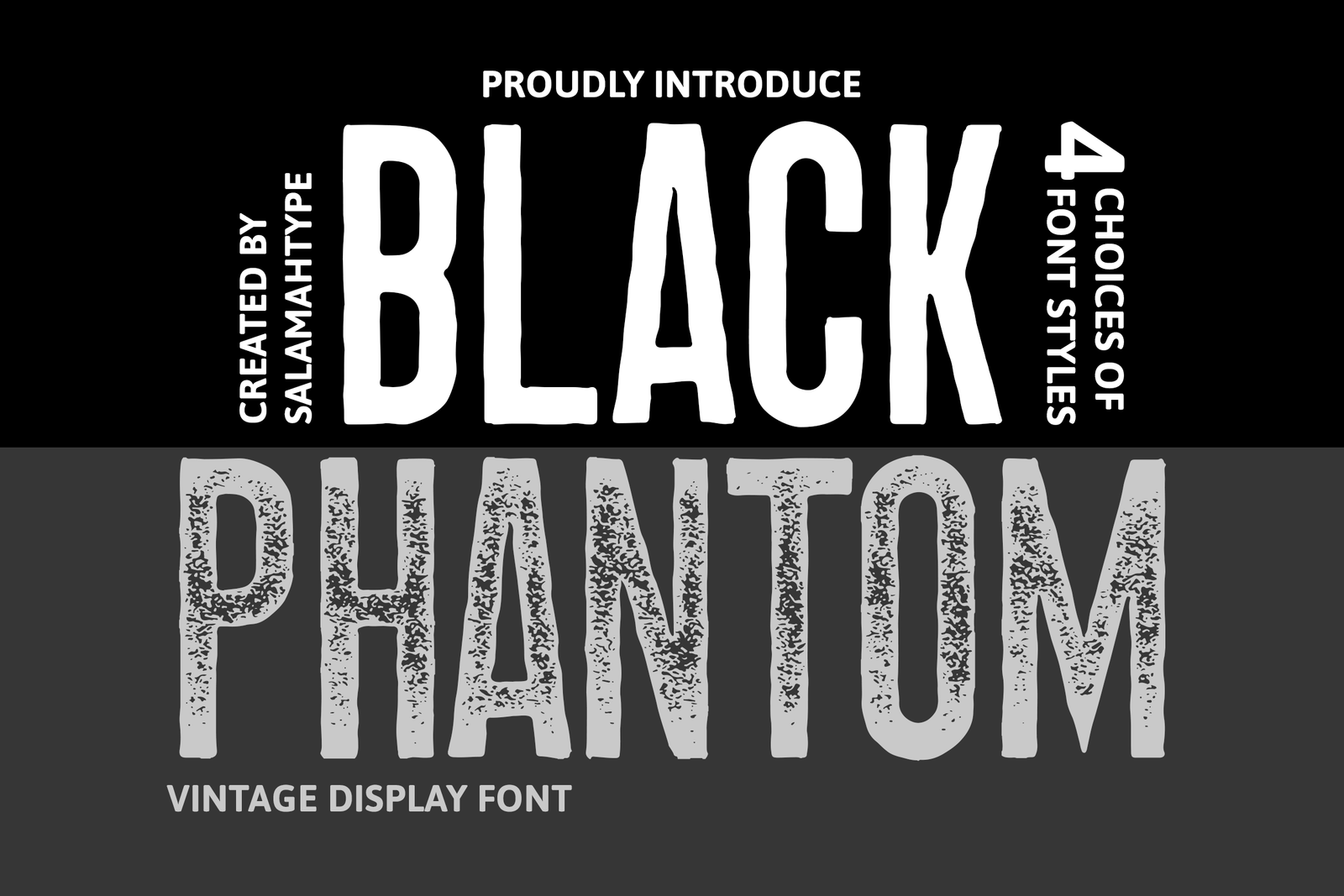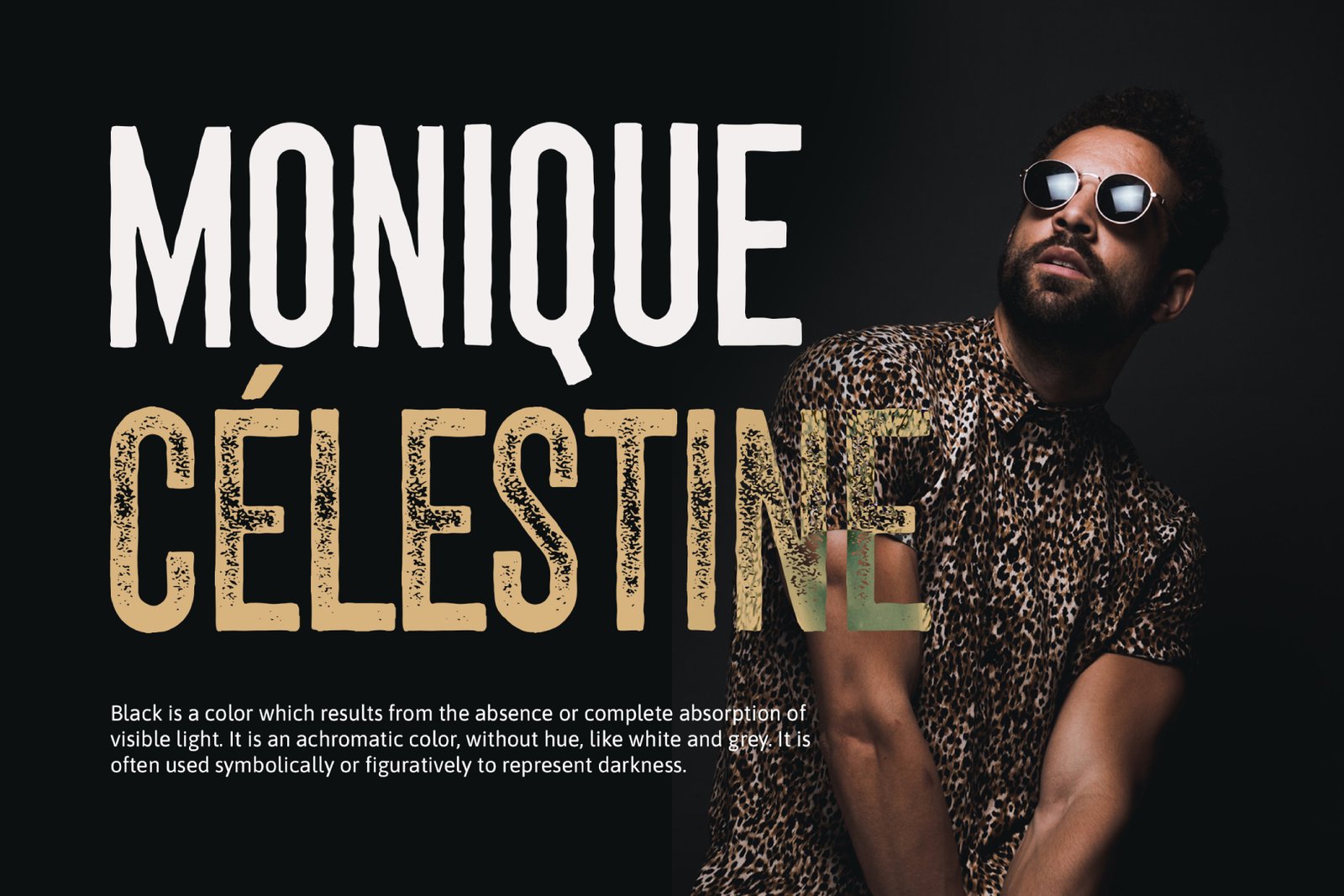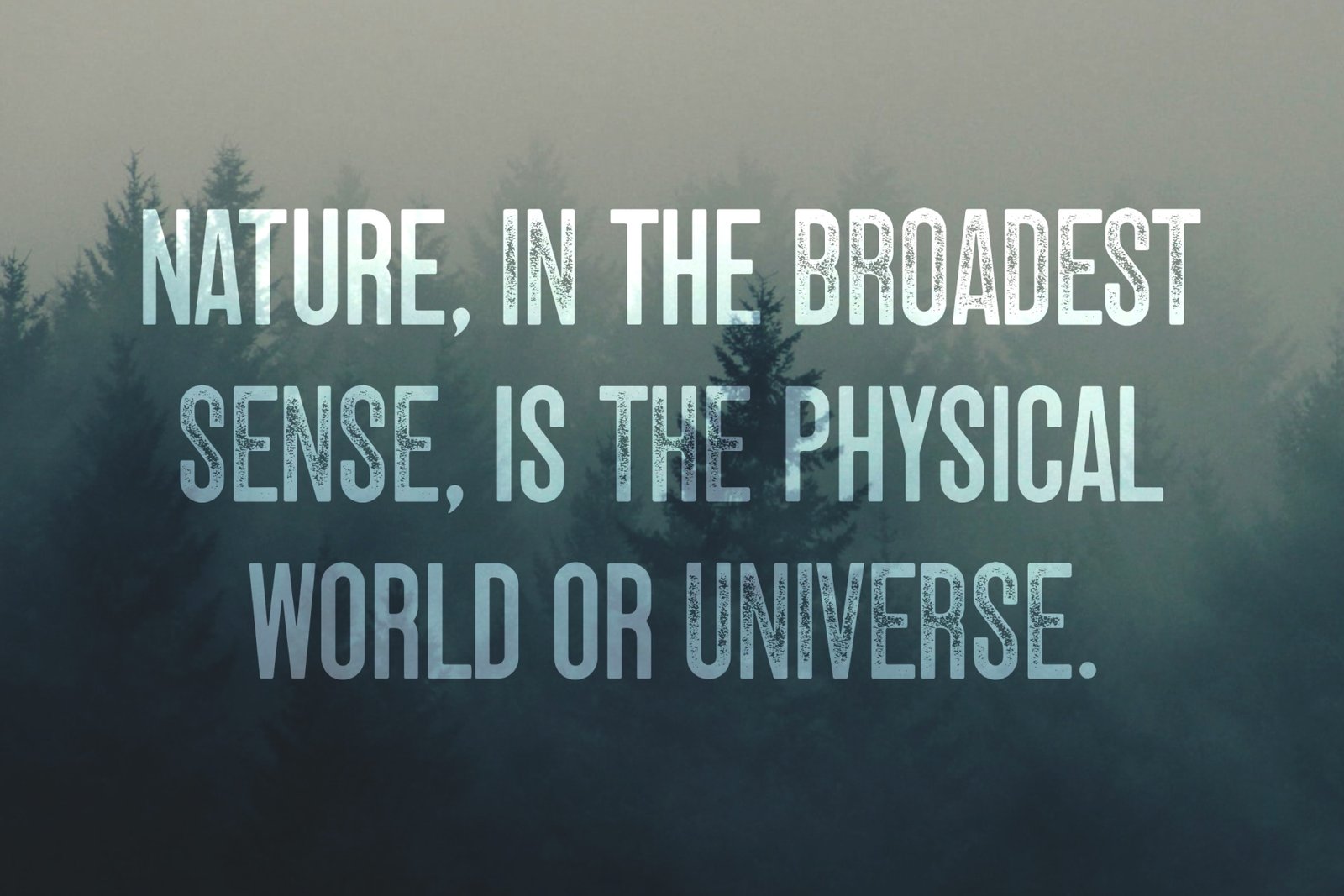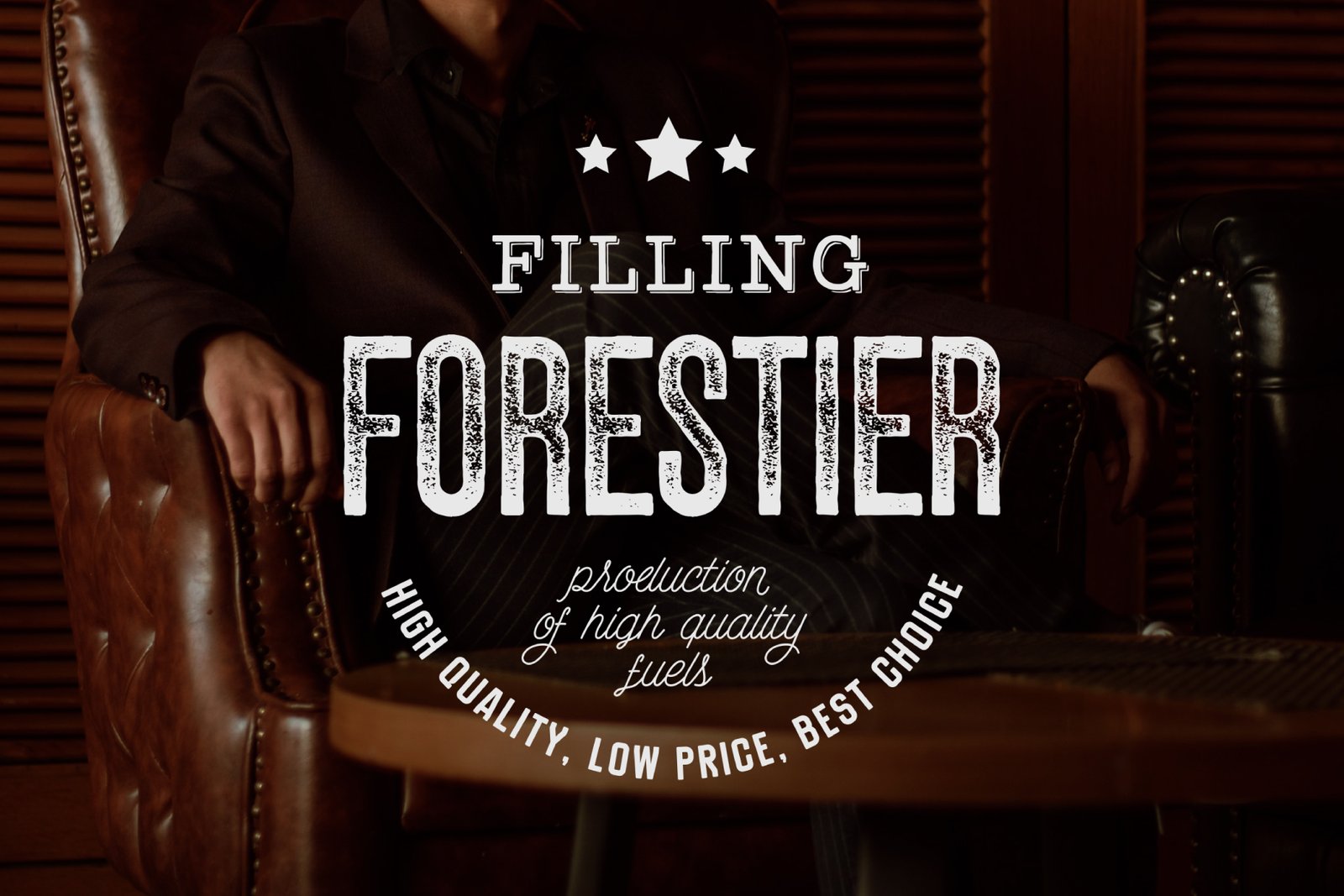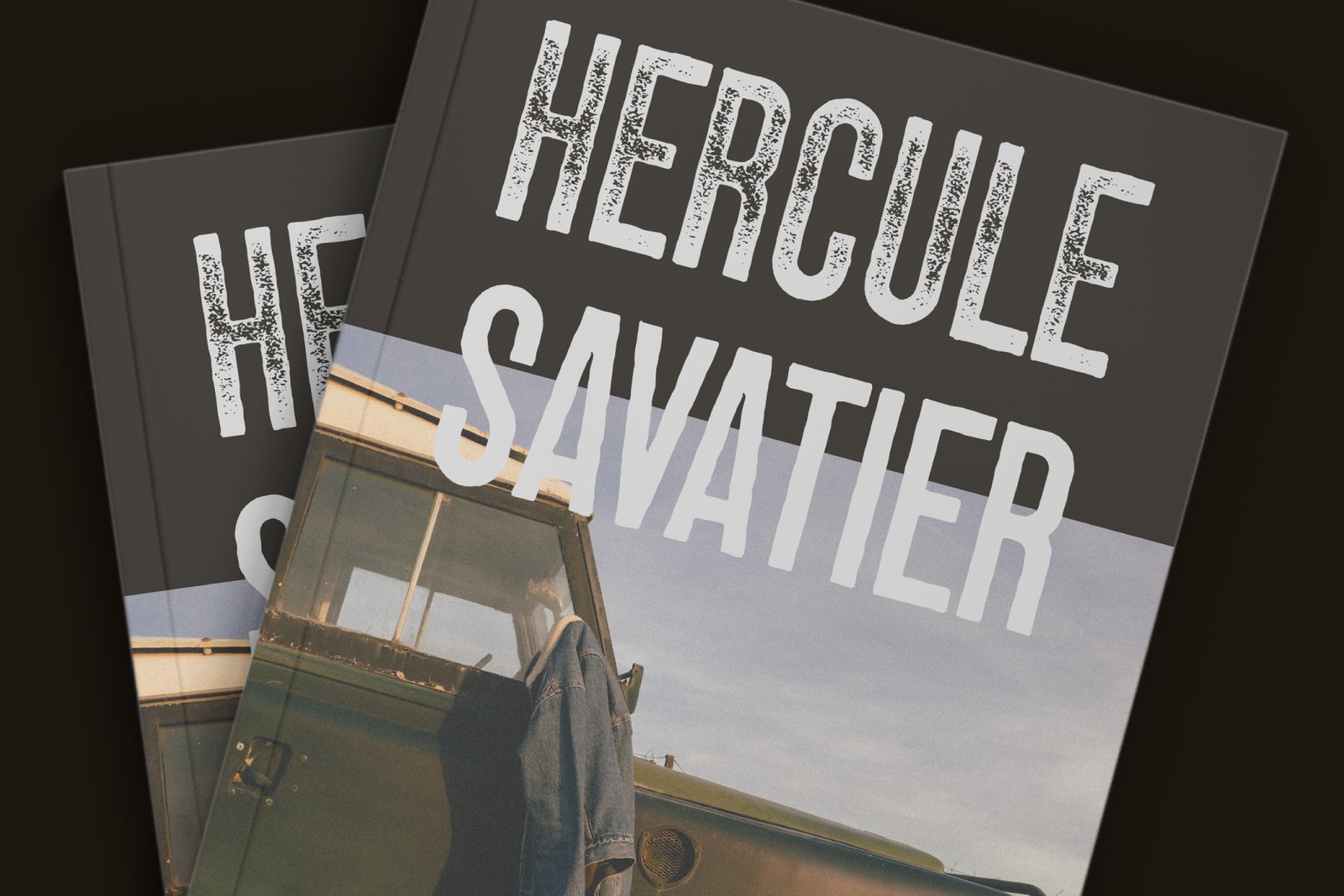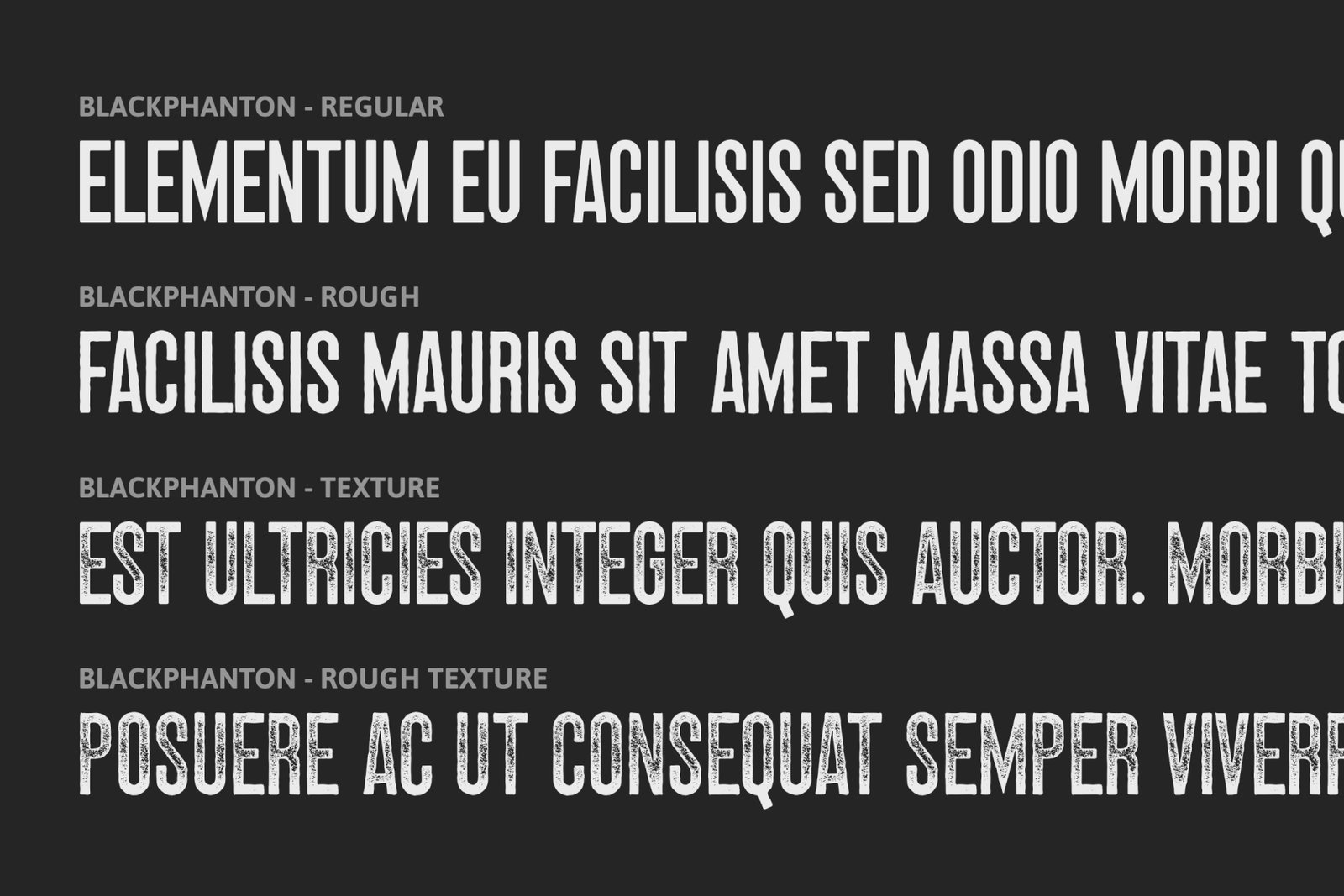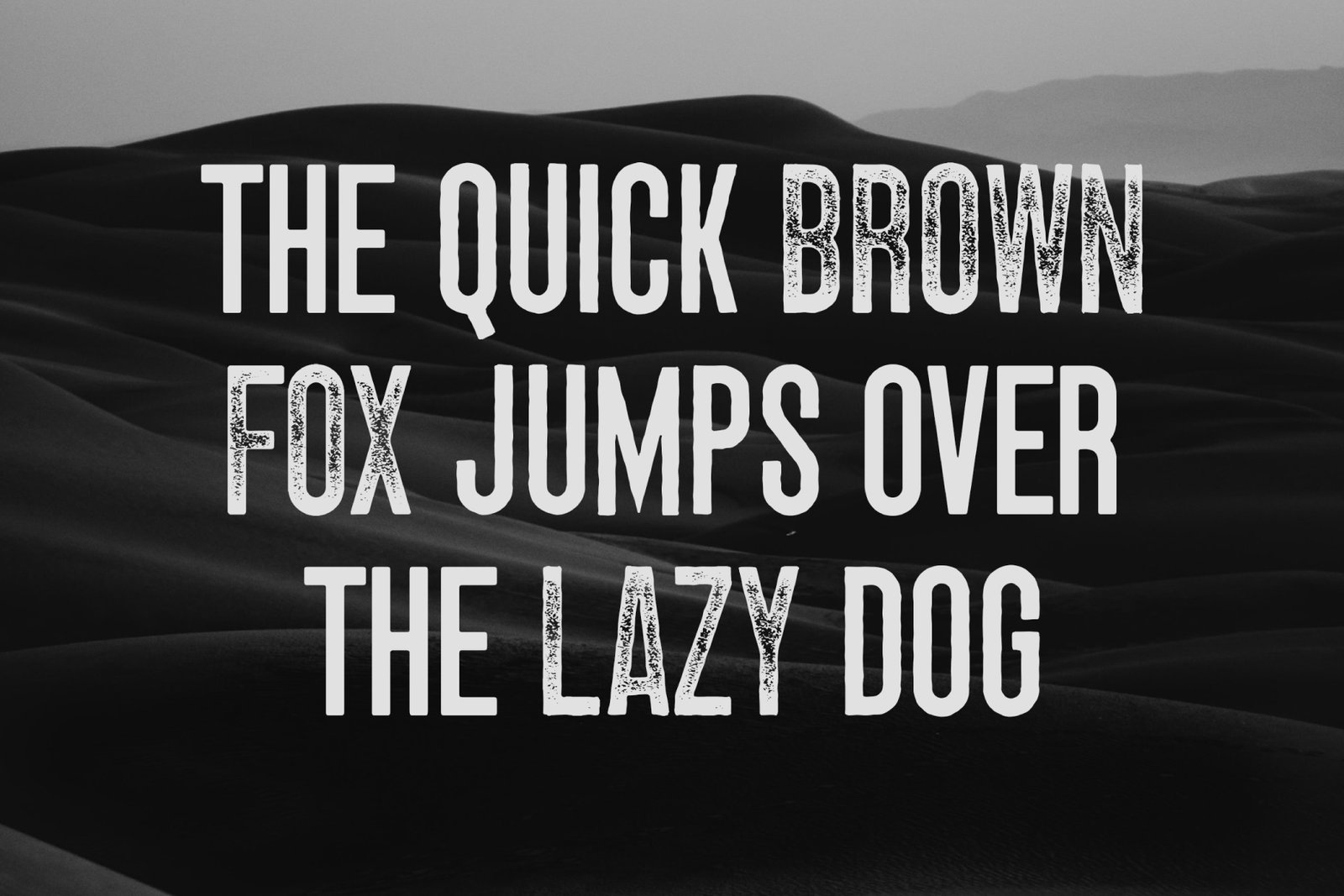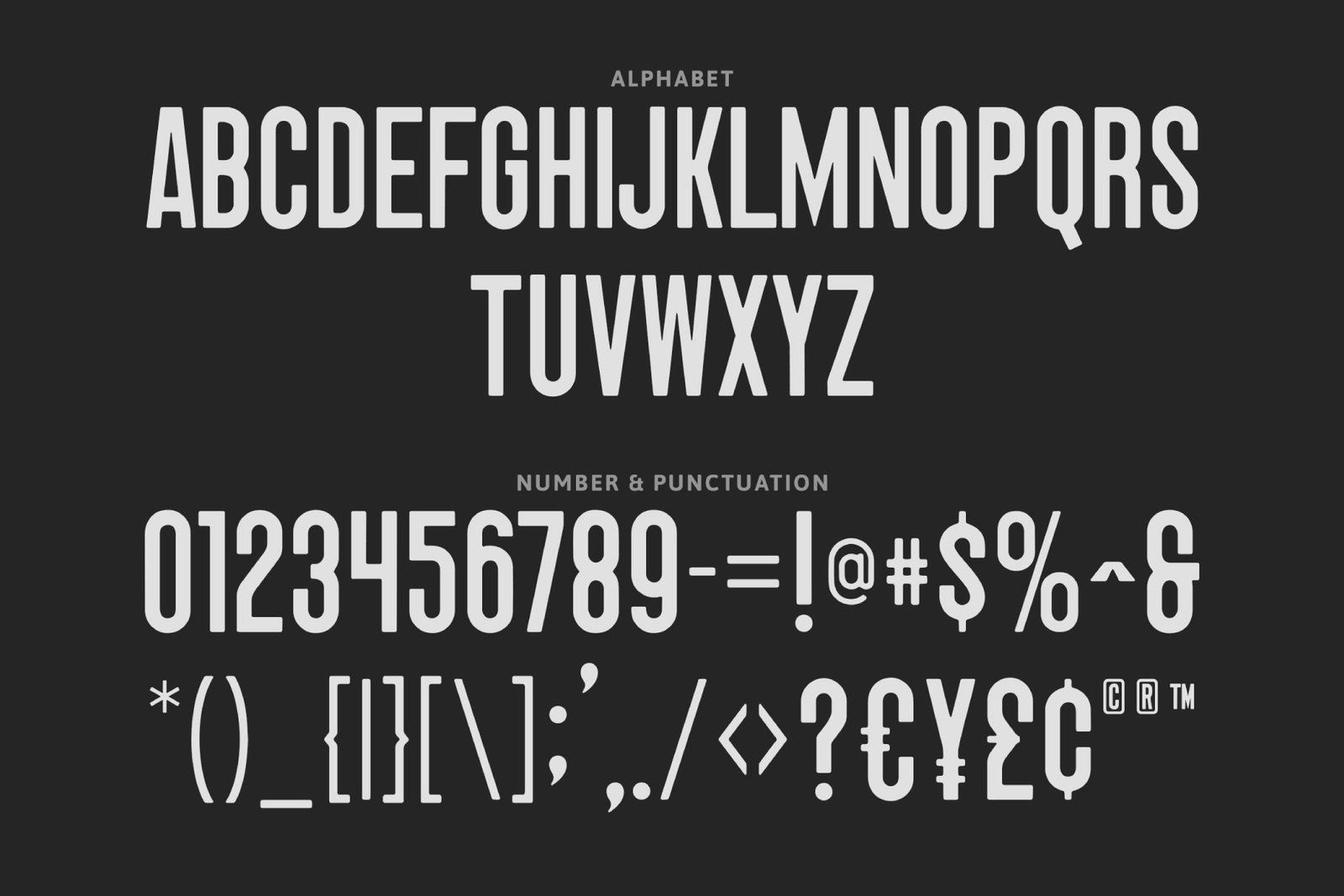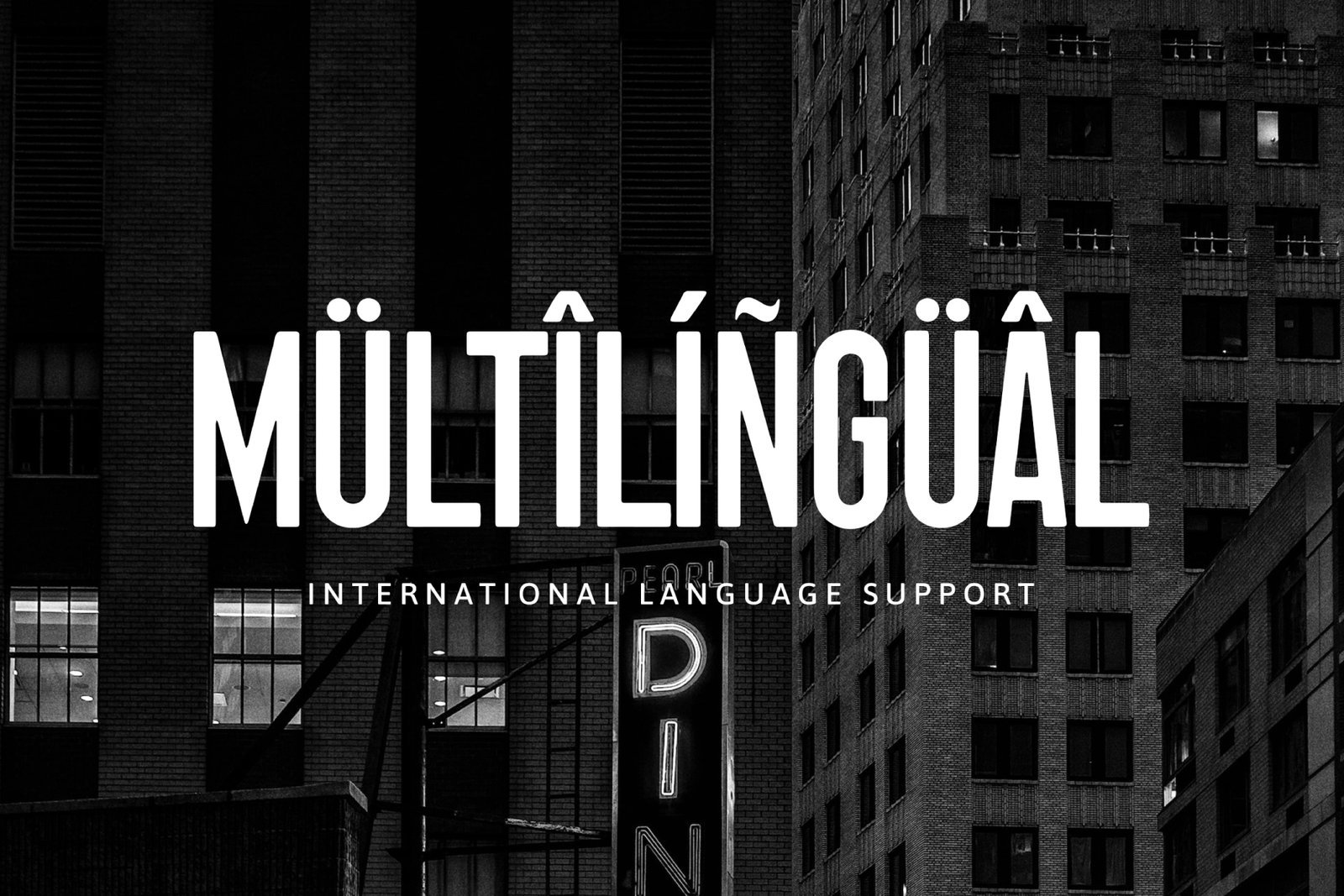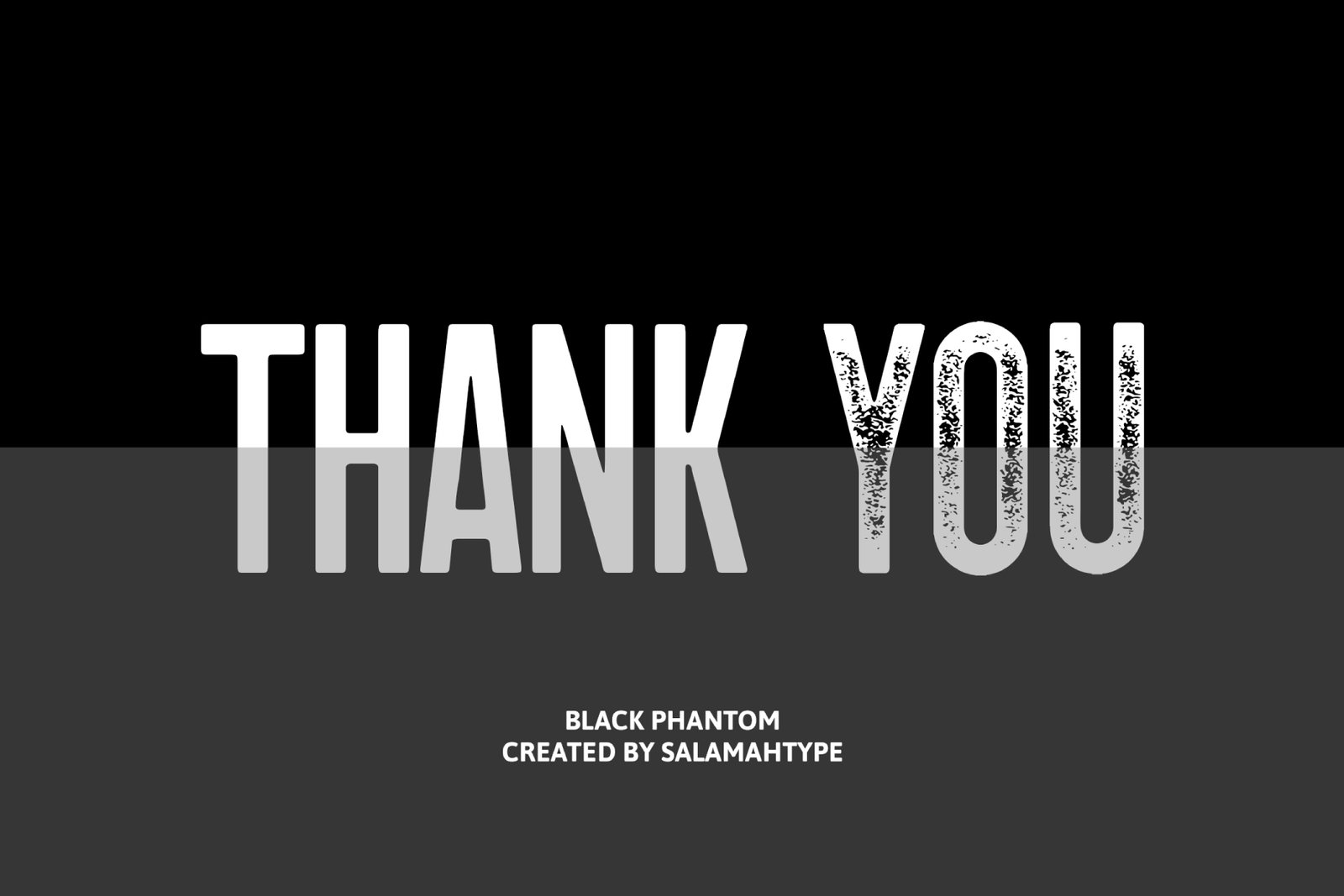
- A-Z all caps characters (4 styles)
- Multilingual support
Black Phantom - Vintage Display Preview
Black Phantom - Vintage Display
About the Font
Hello, Introducing our font called “BLACK PHANTOM” – display sans font with 4 styles included (Clean and Stamp/Textured). Perfect for branding projects, logos, labels and more. With texture like rust core, will make your design, product, logo or label more cool, unique and meaningful.Font Included: